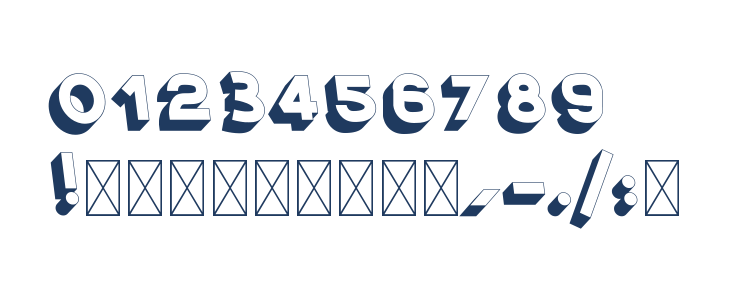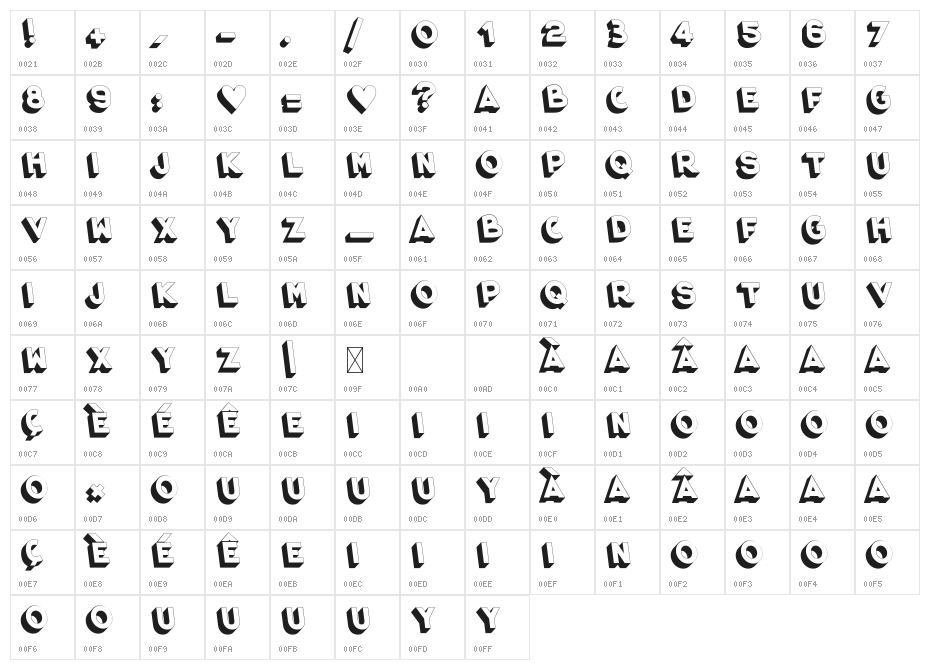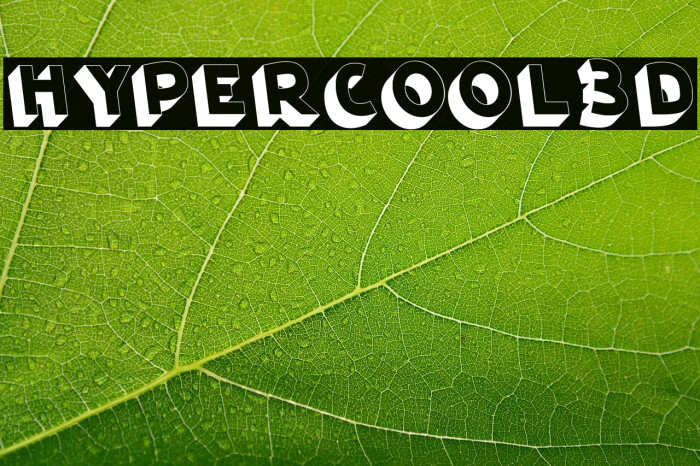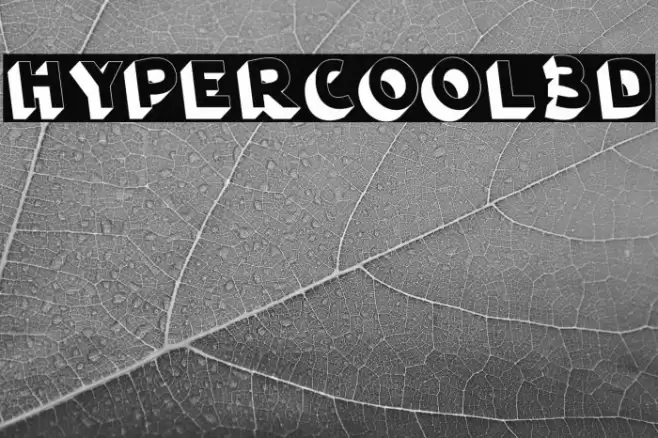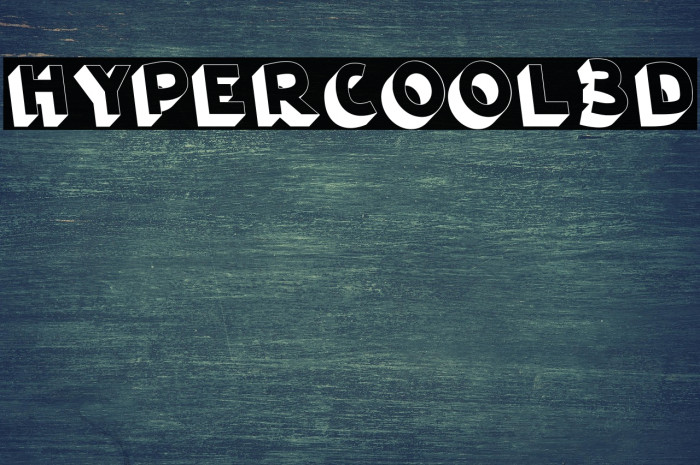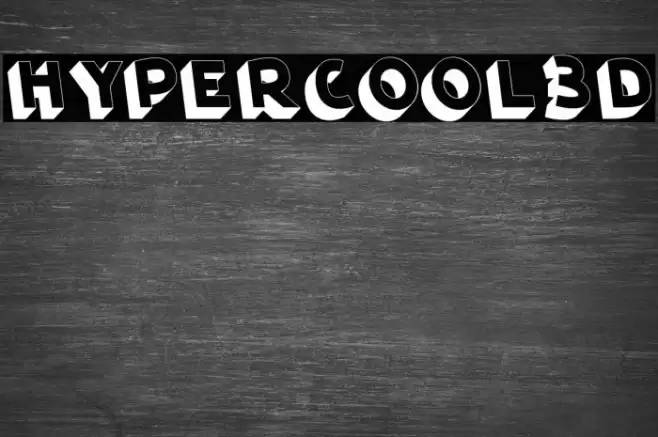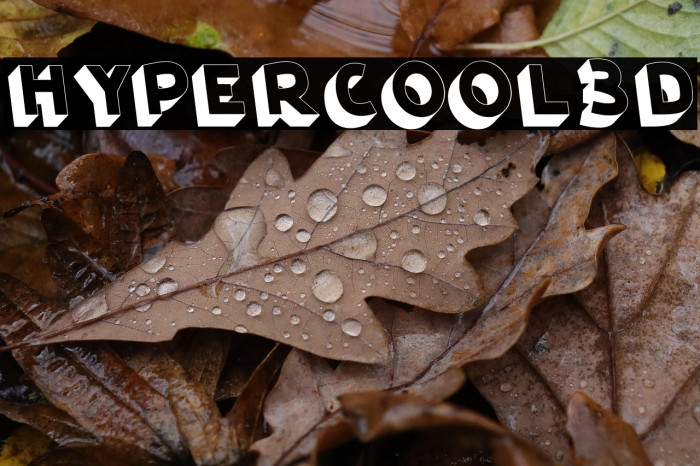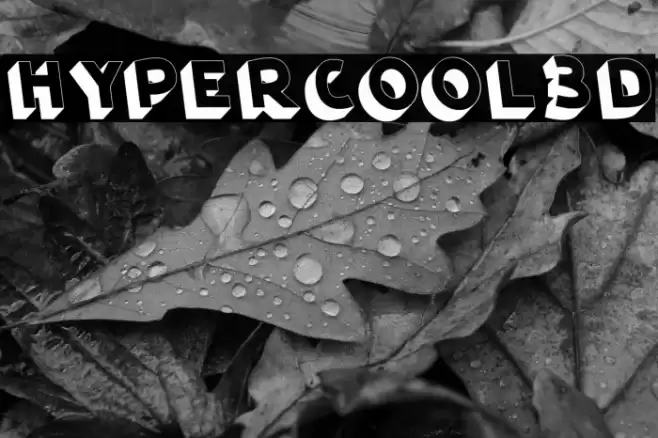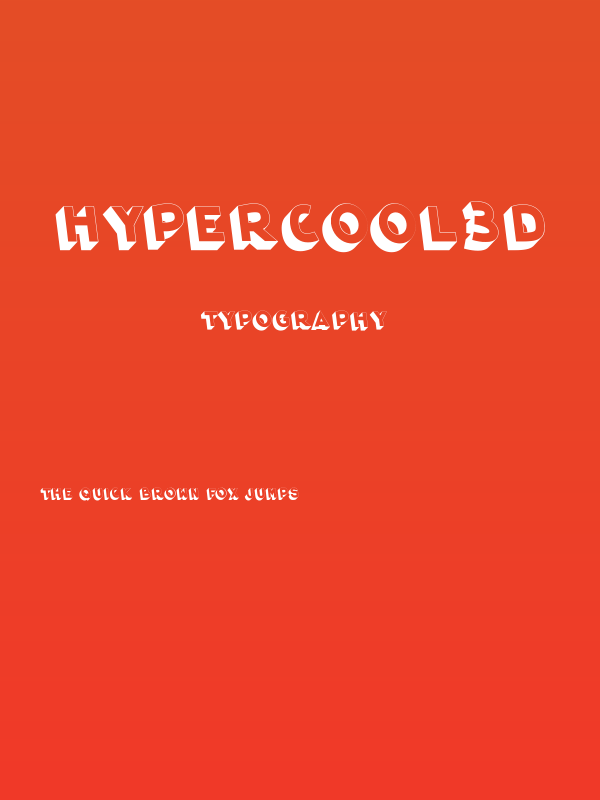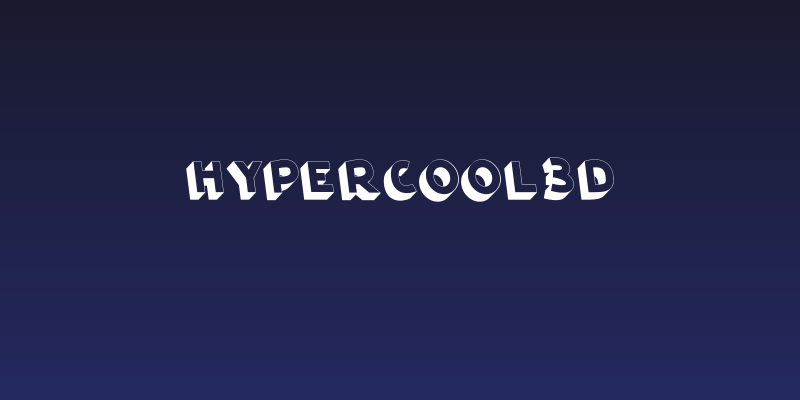
This font features a bold, three-dimensional style with a strong, shadowed effect that gives each character a sense of depth and dynamism. The letters are capitalized and exhibit a geometric, block-like structure, making them stand out prominently. The design is playful yet assertive, with a modern twist that combines both retro and futuristic elements. The numbers and special characters follow the same 3D aesthetic, ensuring consistency across all glyphs. This font is ideal for projects that require a bold statement or a fun, engaging visual impact.
| Proposed Projects | Ideal for posters, video game graphics, logos, and any design needing a bold, eye-catching typeface. |